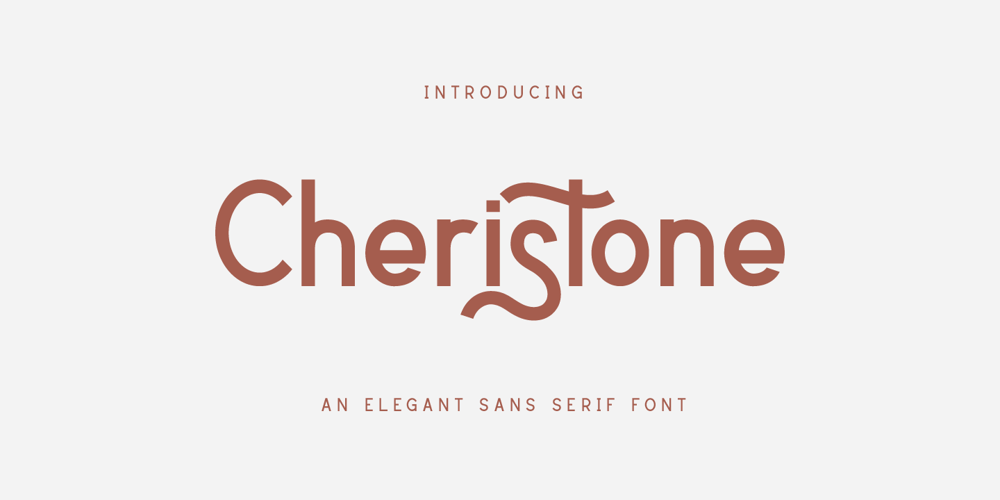
Cheristone Font Family was designed by Hayinah and published by Rockboys Studio. Cheristone contains 1 styles and family package options. Christine is a minimal and neat sans serif font. It can easily be matched to an incredibly large set of projects, so add it to your creative ideas and notice how it makes them stand out!